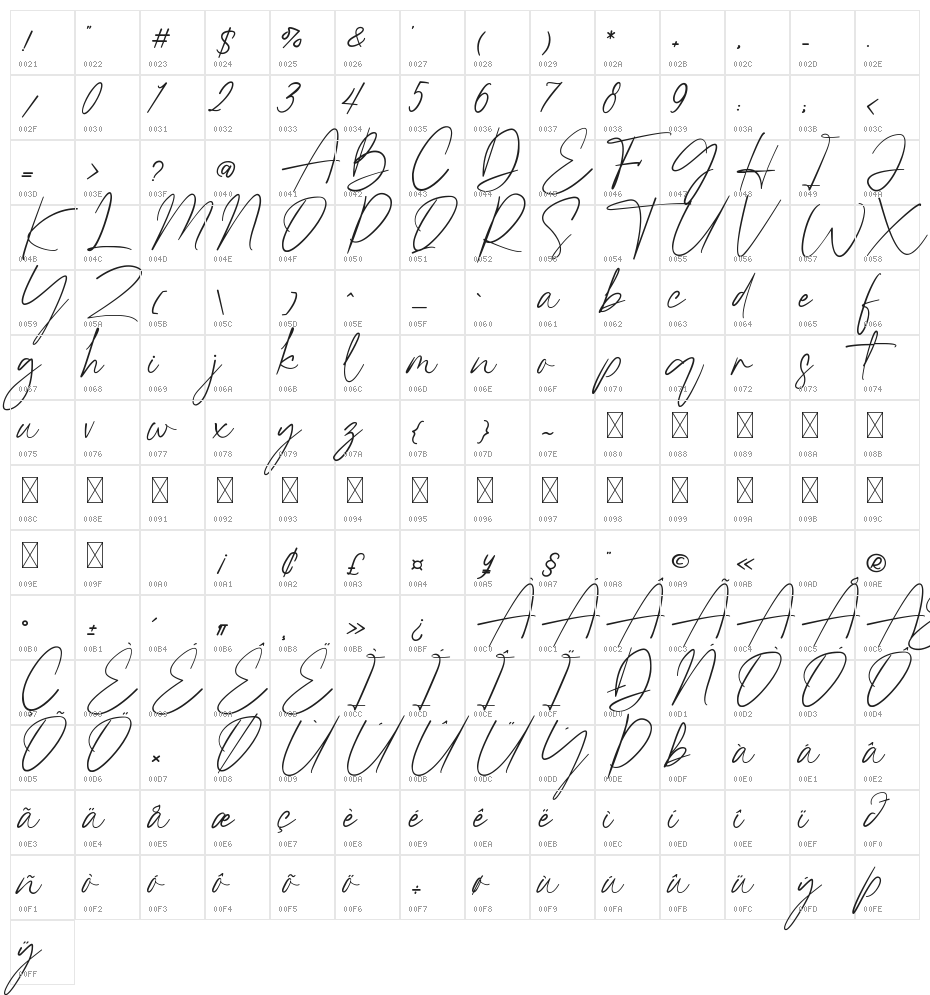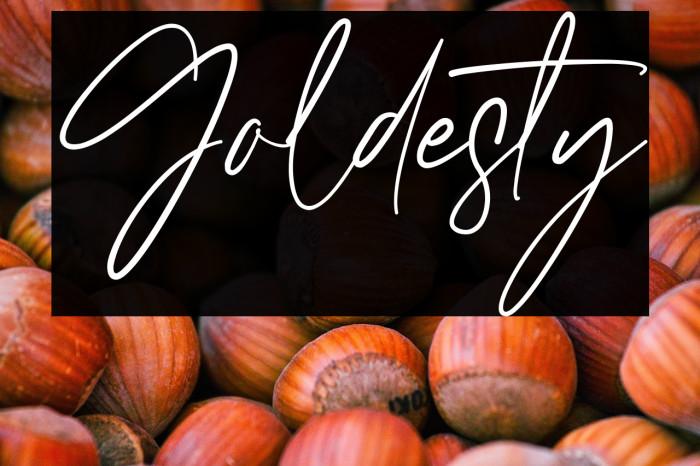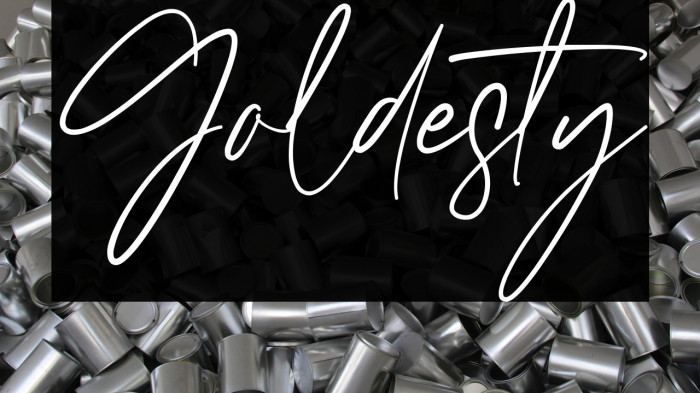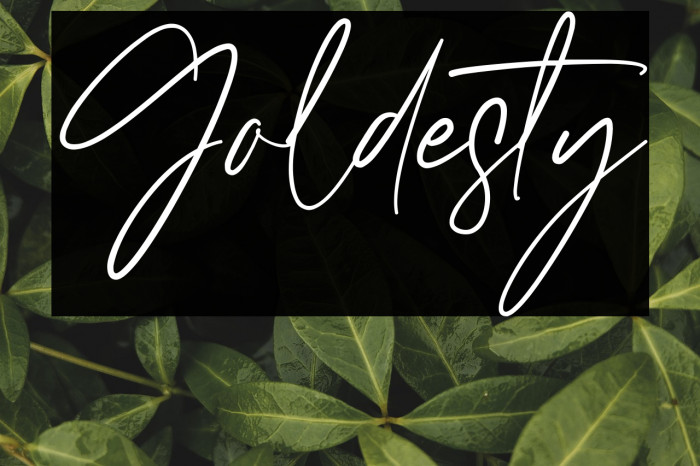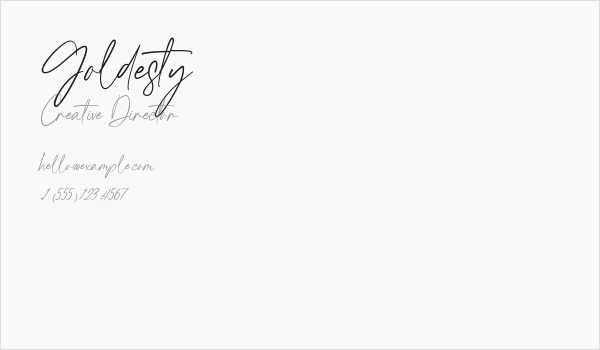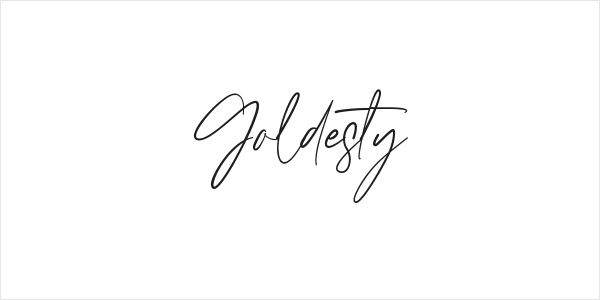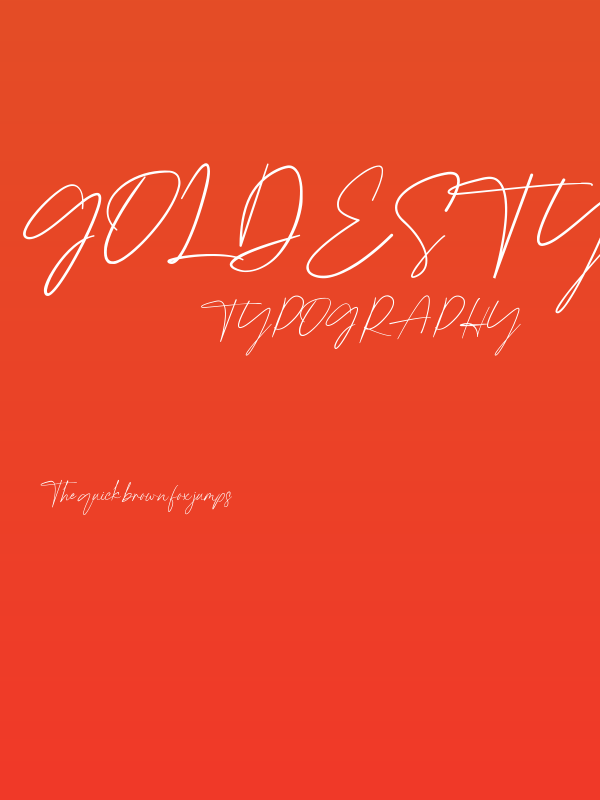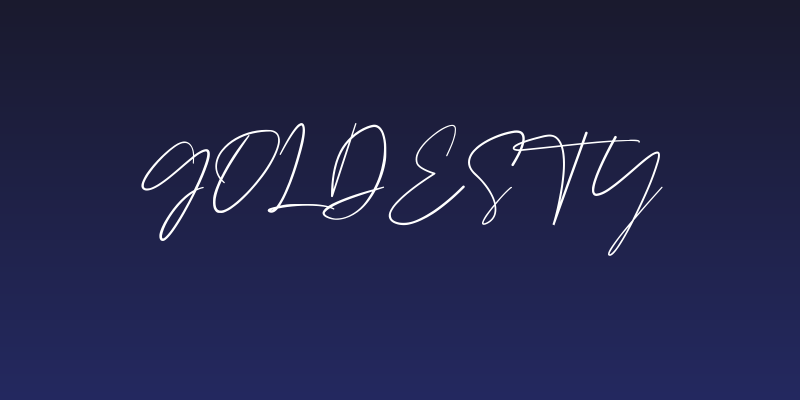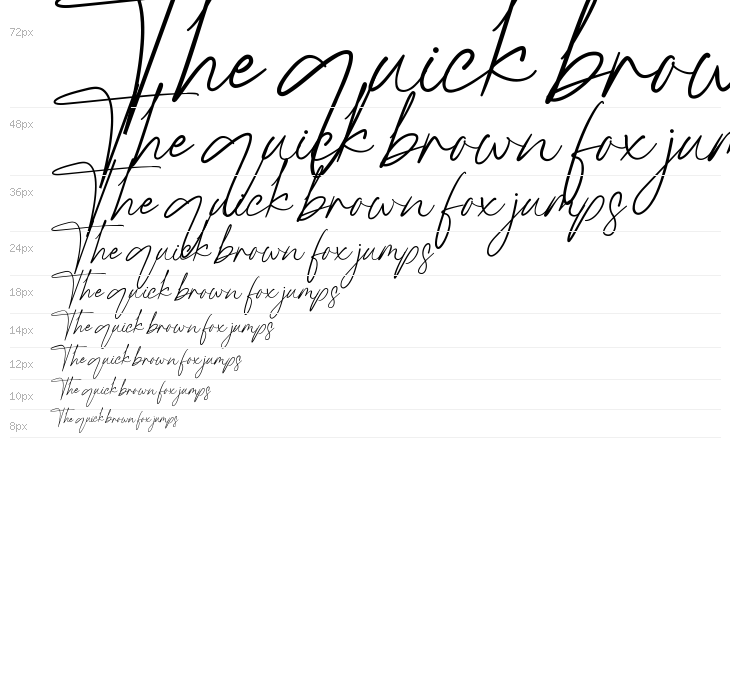
Goldesty Font
Goldesty Description
This font exhibits a fluid and elegant script style, characterized by its cursive, handwritten appearance. The letters are connected, creating a seamless flow that mimics natural handwriting. The uppercase letters are slightly more structured, while the lowercase letters display a more casual and freeform style. The numerals and special characters maintain the same handwritten aesthetic, ensuring consistency throughout. The strokes are thin and delicate, adding to the overall graceful and sophisticated look of the font.
| Overall Style | Elegant, Handwritten |
| Proposed Projects | Ideal for wedding invitations, personal branding, greeting cards, and elegant packaging designs. |